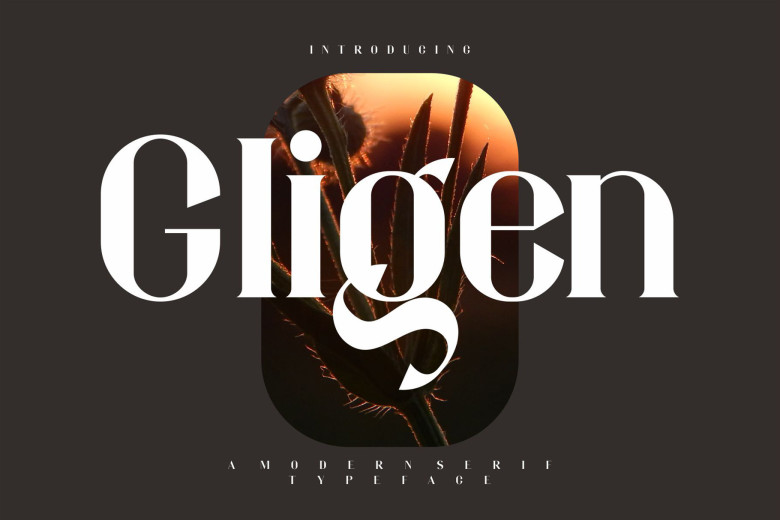
Gligen Font
Gligen Font is a classy and elegant serif font – this typeface embodies modernity while remaining nostalgic, making it perfect for logos, magazines and social media posts. Already matched to work together seamlessly in your next design project.
Perfect for logos that need that added bit of elegance or class. Perfect when used together as part of your branding scheme or design scheme. This font adds chic style with elegance.
Gligen Serif Font